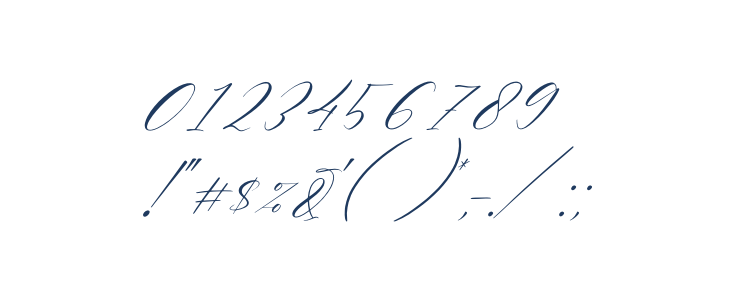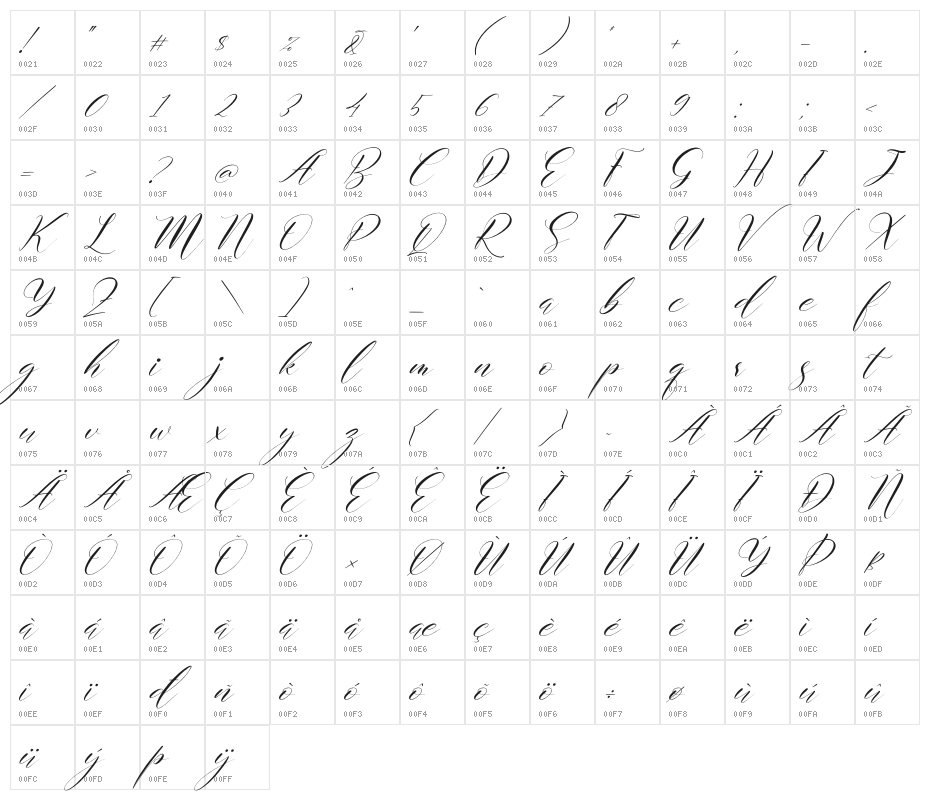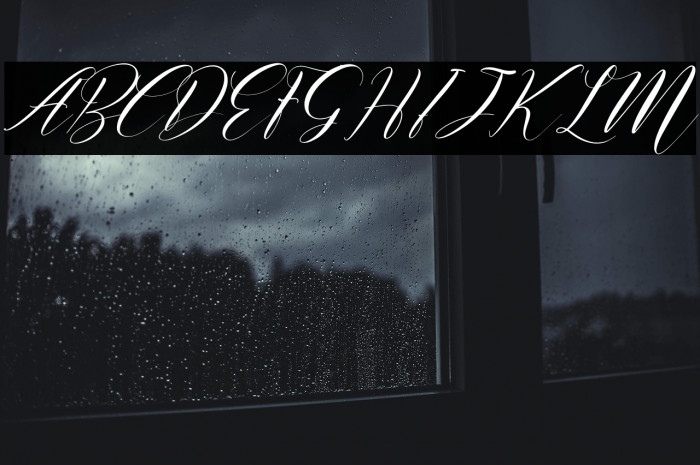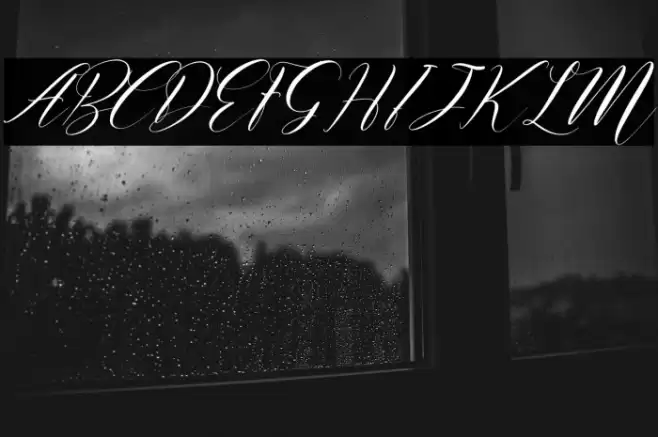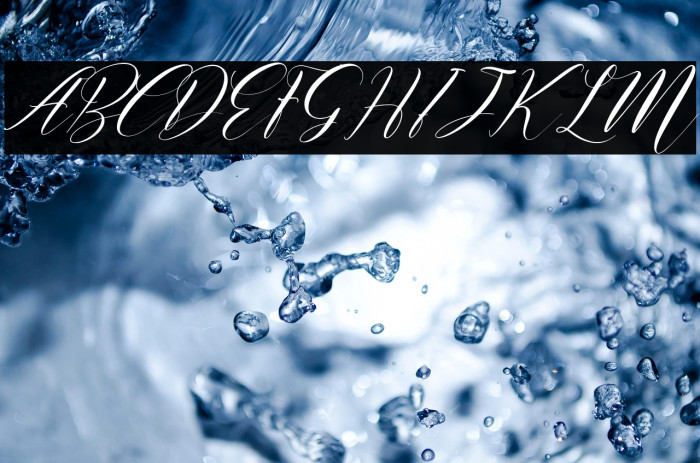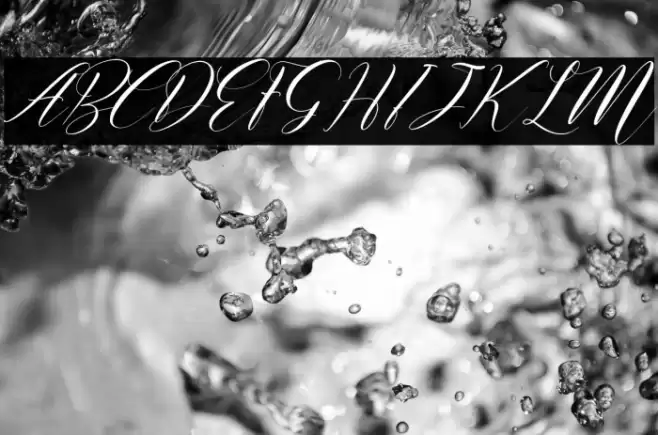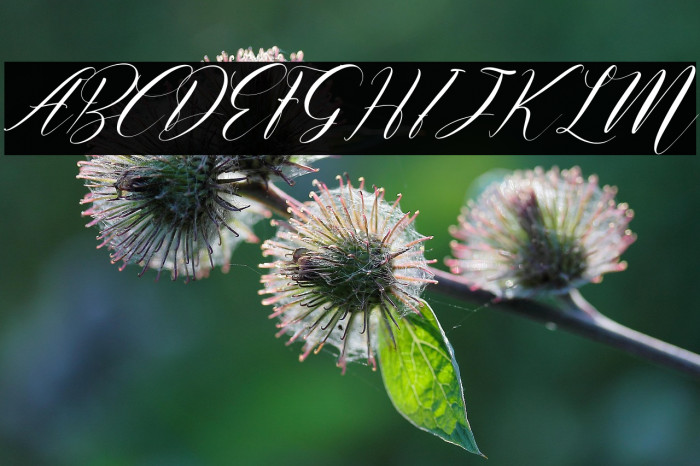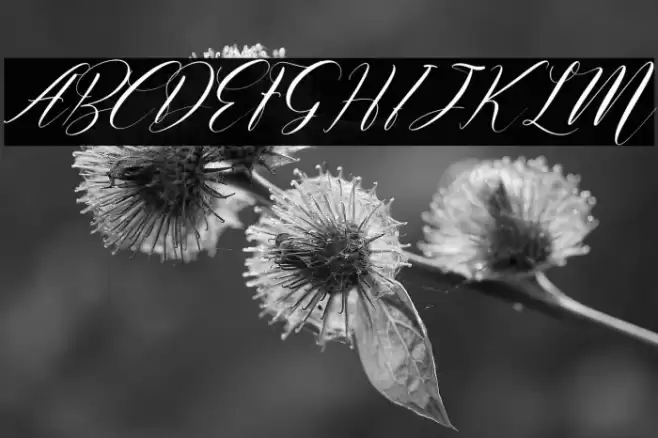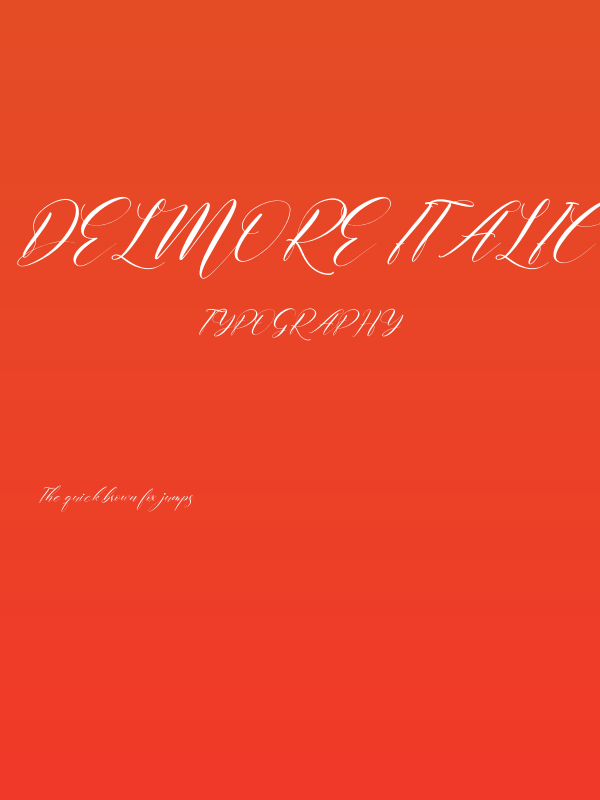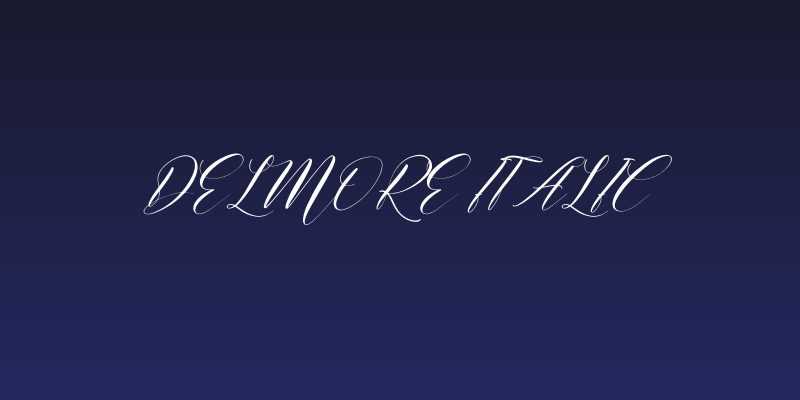
Delmore Italic Font
Delmore Italic Description
This elegant script font features a flowing, cursive style with a distinct italic slant, giving it a sophisticated and graceful appearance. The characters are intricately designed with high contrast between thick and thin strokes, adding a dynamic and lively feel. The uppercase letters are particularly ornate, with sweeping curves and flourishes that enhance the font's decorative quality. Lowercase letters maintain a consistent flow, connecting smoothly to create a seamless and fluid text. The numerals and special characters are equally stylized, ensuring a cohesive look across all elements. This font is ideal for projects that require a touch of elegance and refinement.
| Proposed Projects | Wedding invitations, luxury branding, elegant stationery, high-end product packaging, and decorative headlines. |